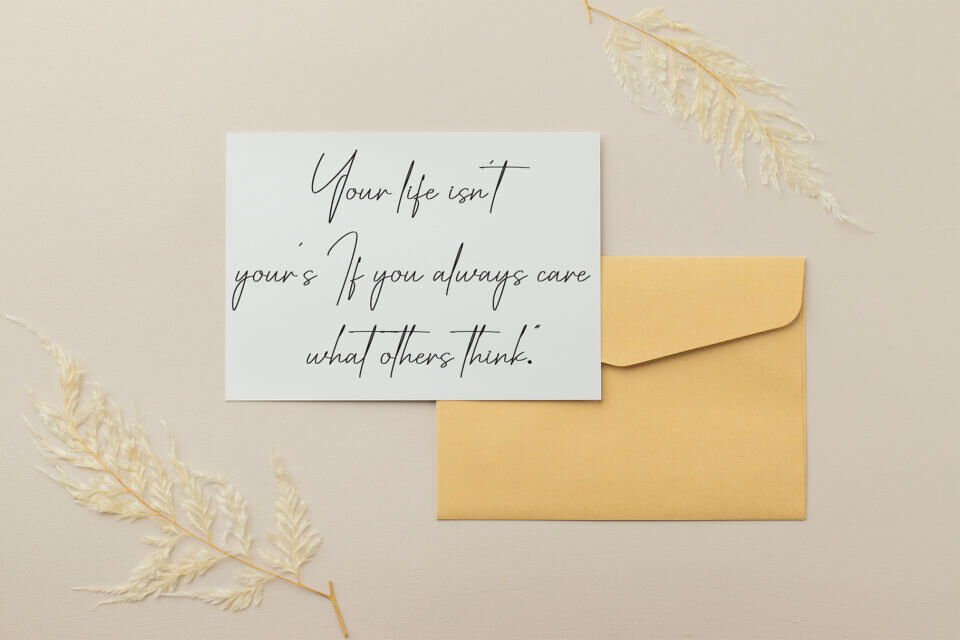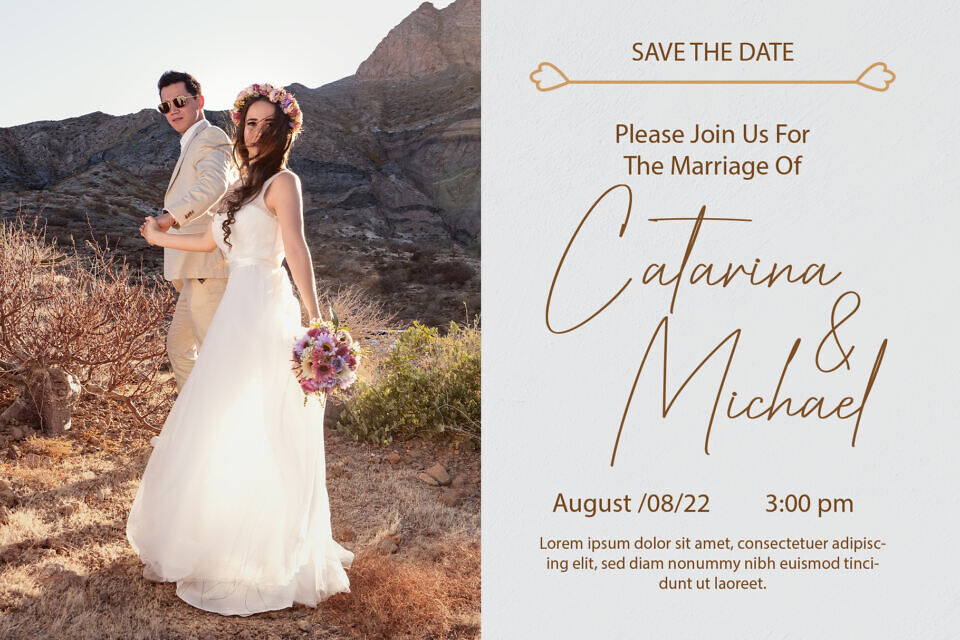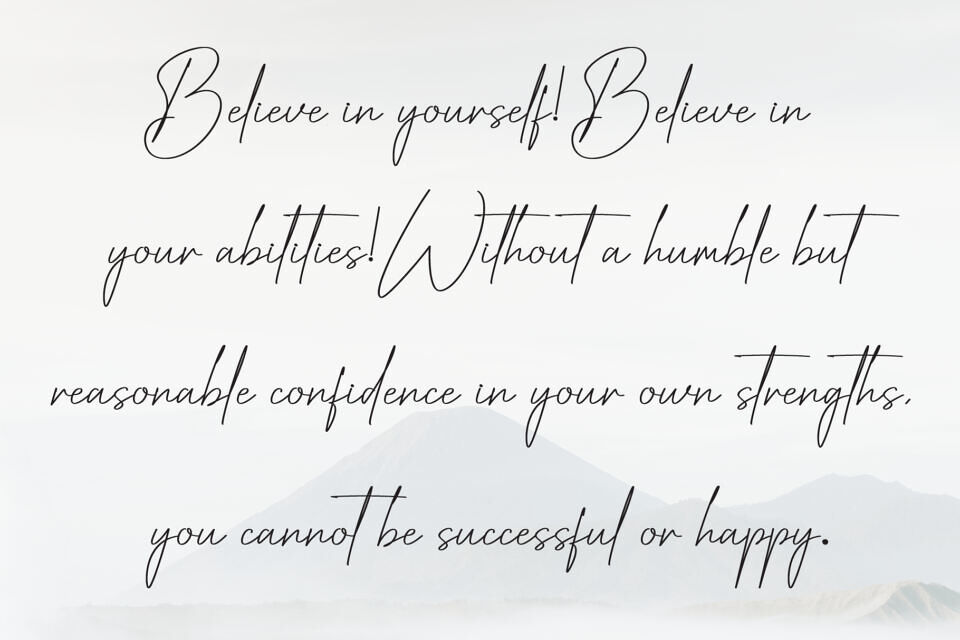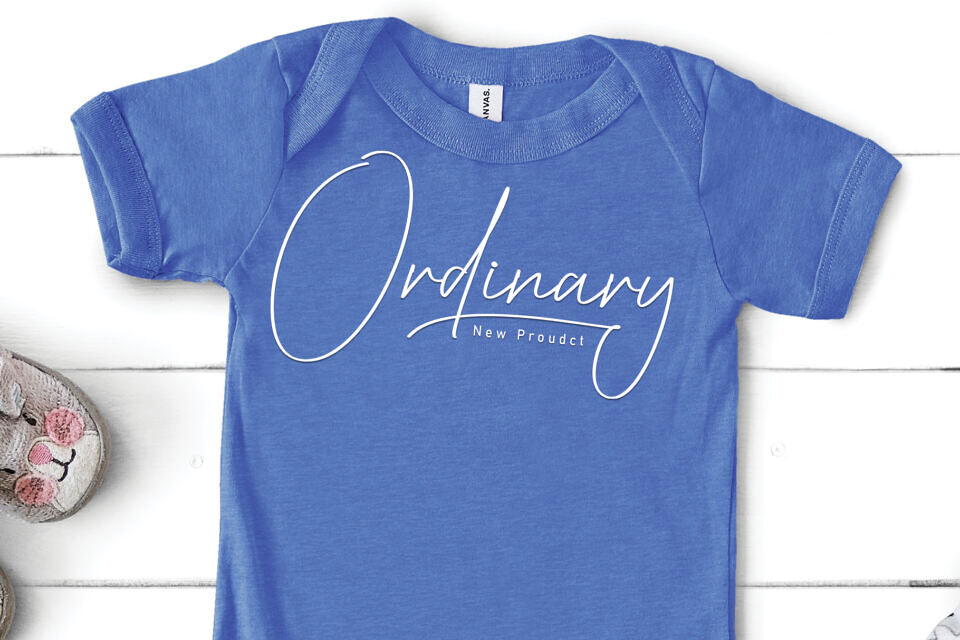
“Happy Birthday Font” is a graceful, hand-drawn script typeface that exudes celebration. Its elegant, flowing strokes and subtle swashes bring a festive yet sophisticated vibe to birthday designs.
Ideal for invitations, cards, and decorations, this font blends calligraphy charm with a playful spirit. The smooth, cursive style ensures readability while adding a personal touch to your projects.
Available in various weights, it offers versatility for both digital and print media, making every birthday message feel special and heartfelt with its joyful, handwritten essence.